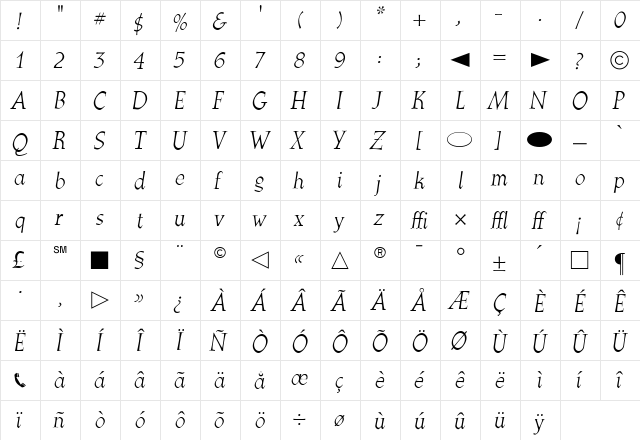
CgAthenaeumItalic Medium
Design Context for CgAthenaeumItalic Typeface
CgAthenaeumItalic is a composed and adaptable typeface that performs quietly and consistently across a wide range of design contexts. Its italic angle brings a sense of urgency and motion to the letterforms.
Pro Tip: Try CgAthenaeumItalic for annotation and caption copy alongside an upright companion — the contrast in angle creates a dynamic but ordered typographic system.